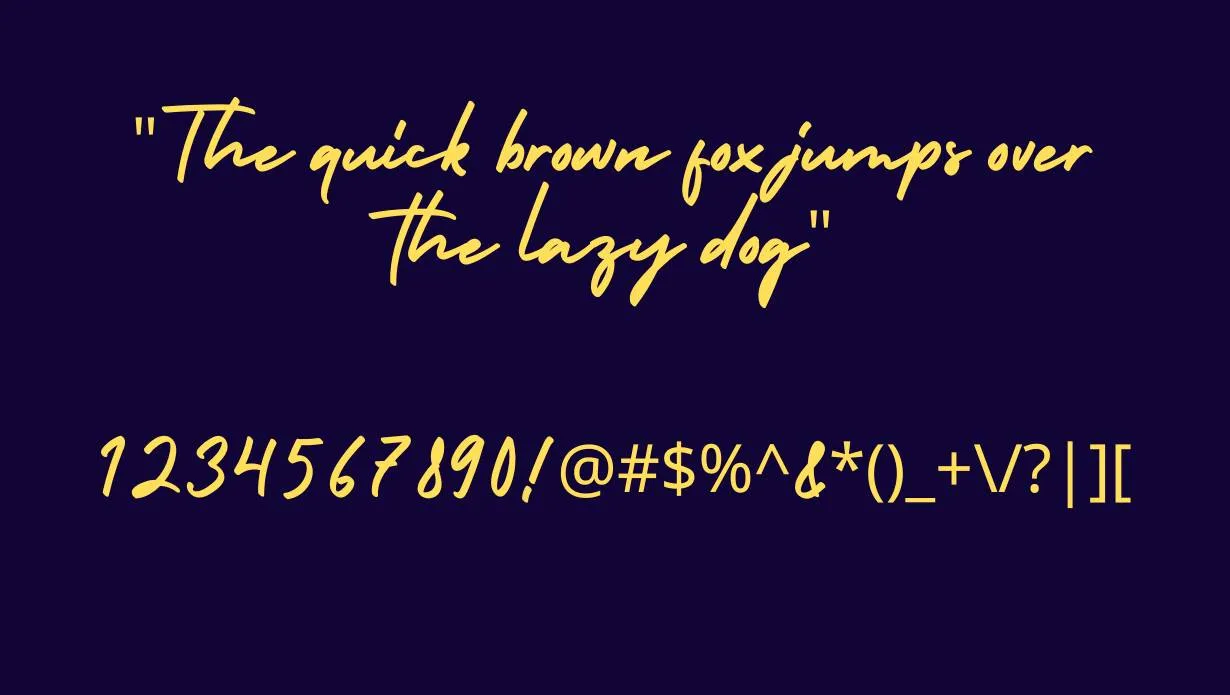
The Holiday Bold Script font is known for its bold and stylish cursive appearance. It is frequently used in festive designs, greeting cards, or any project requiring a decorative and celebratory look.
This font’s decorative and elegant style adds a touch of flair and festivity to the text, perfect for setting a jubilant tone in celebratory designs. When the brush script font is paired with this typeface, it becomes possible to create captivating displays.
| Name | Holiday Bold Script Font |
| Designer | Letterhend |